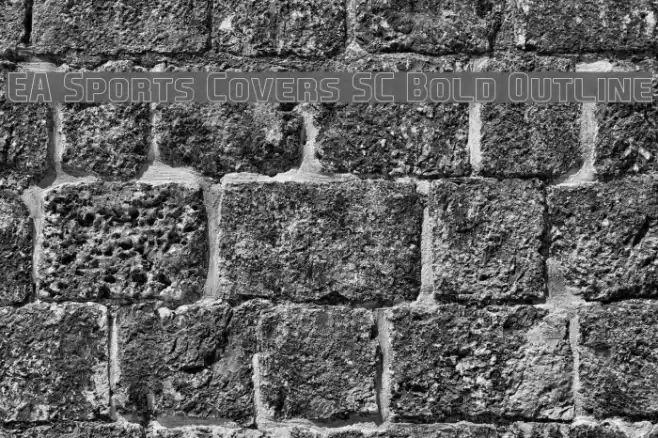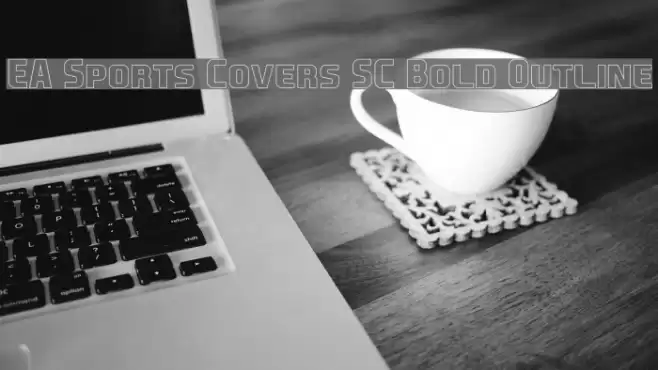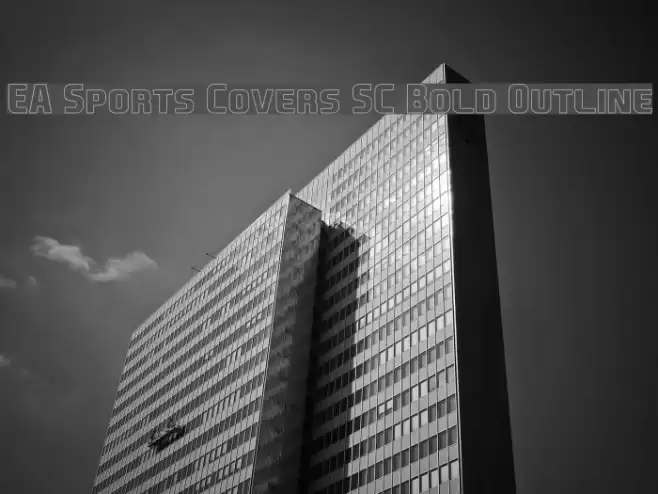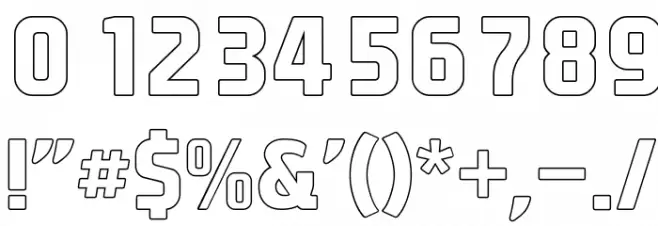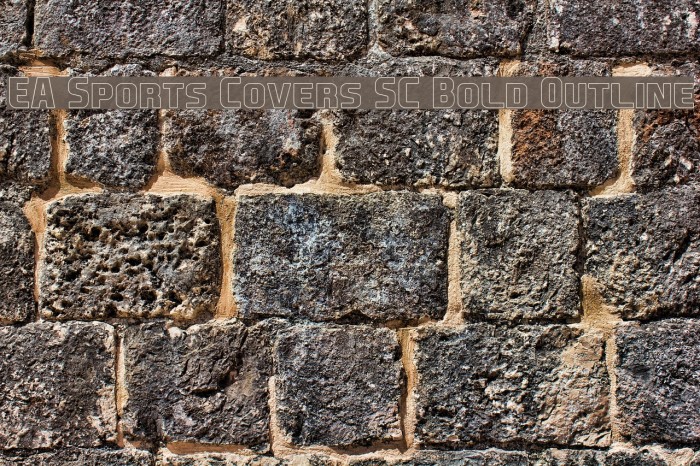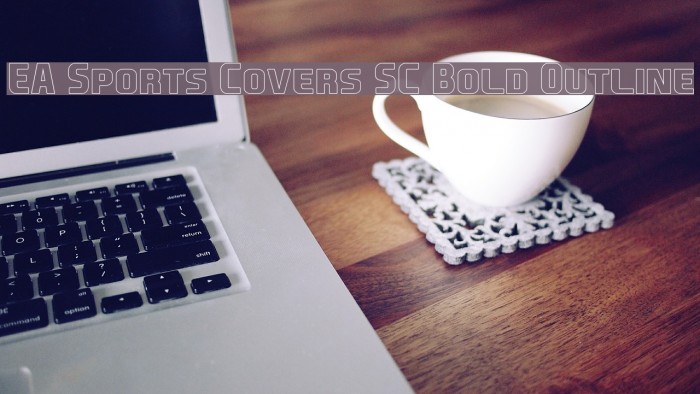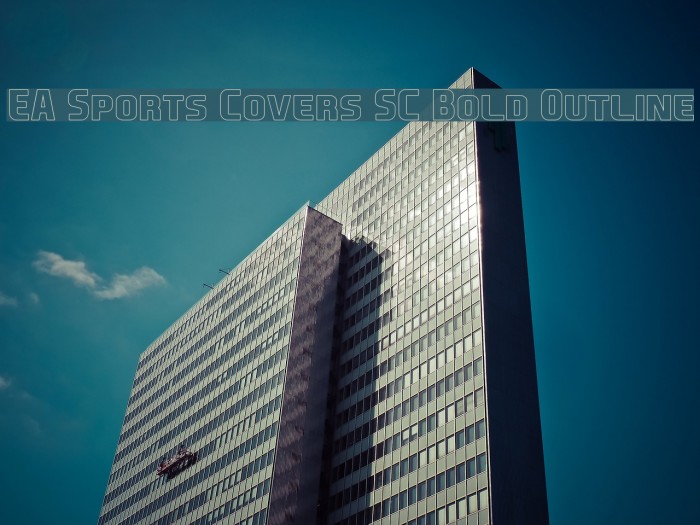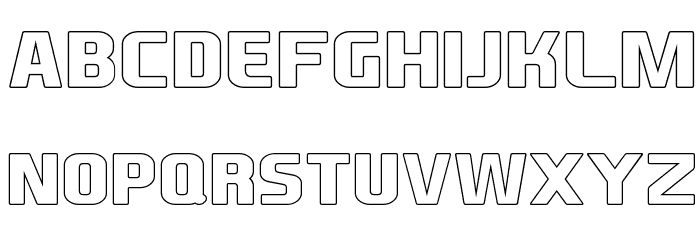
EA Sports Covers SC Bold Outline Font
EA Sports Covers SC Bold Outline Description
This font features a bold, outlined style that gives it a striking and modern appearance. The characters are uppercase and lowercase, with numerals and a variety of special characters. The outline design adds a sense of depth and dimension, making it suitable for eye-catching designs. The geometric shapes and clean lines contribute to its contemporary feel, while the consistent stroke width maintains uniformity across all characters. This font is ideal for projects that require a bold statement, such as sports branding, posters, and dynamic headlines.
A bold, outlined font with a modern and geometric style from Uncategorized fonts.
- Proposed Projects: Ideal for sports branding, posters, dynamic headlines, and any design needing a bold statement.